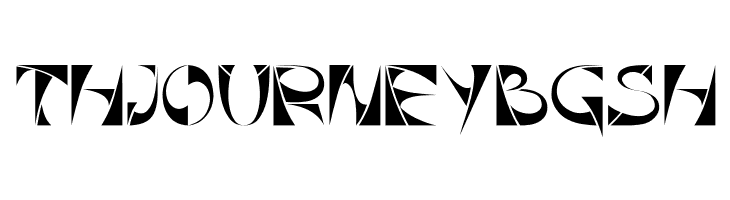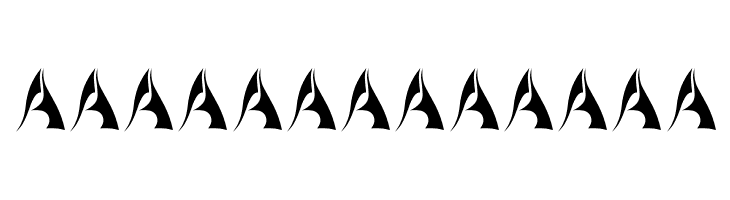
Xorx_windy Cyr Font
A decorative and abstract font with sharp angles and bold curves.
Xorx_Toothy Cyr Font
A bold, angular font with sharp edges and geometric shapes for a modern, edgy look.